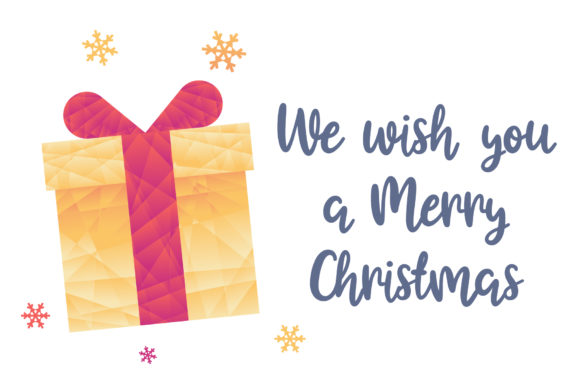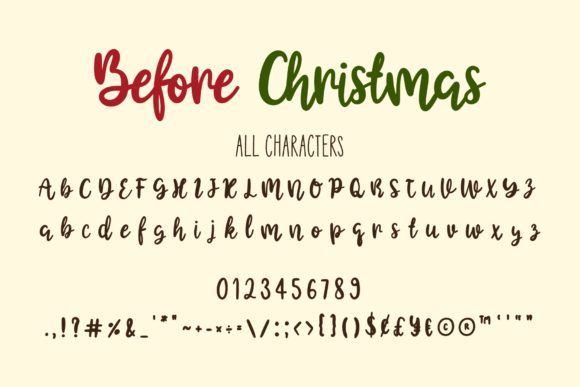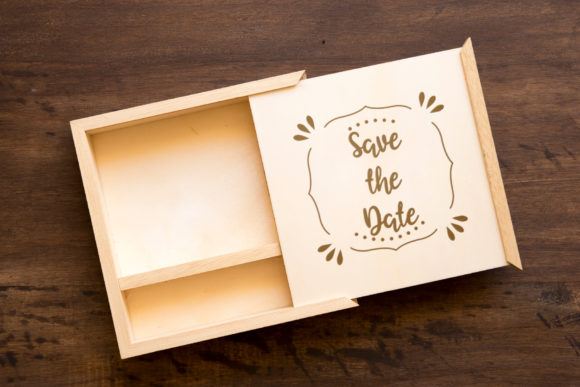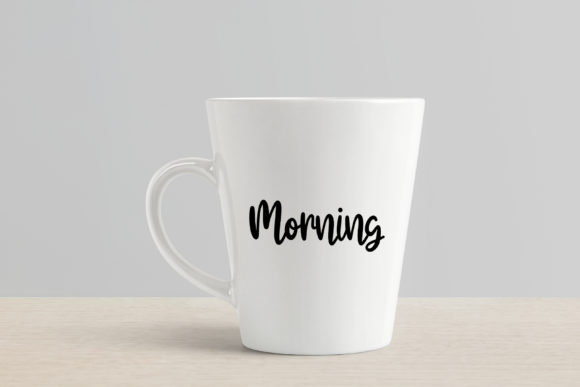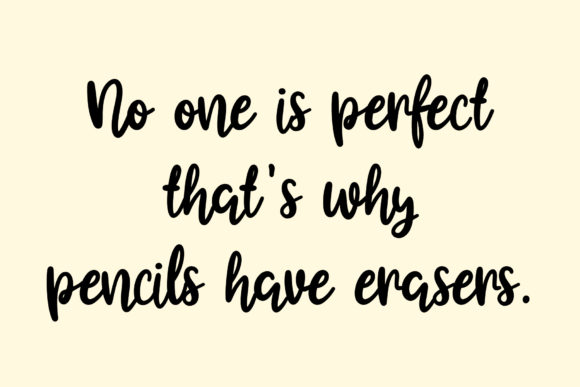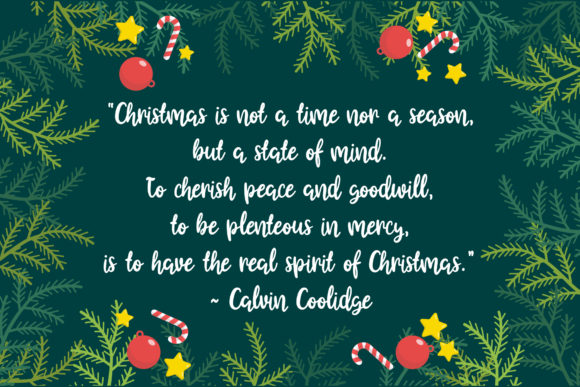
Introducing the Before Christmas Font: A Sweet and Friendly Handwritten Delight
Are you looking for a font that captures the essence of the holiday season? Do you want to add a touch of playfulness and quirkiness to your designs? Look no further than the Before Christmas Font, a sweet and friendly handwritten font that’s perfect for any festive project. In this article, we’ll dive into the world of Before Christmas Font, exploring its features, uses, and benefits for designers and crafters.
A Playful and Quirky Style
Before Christmas Font is a handwritten font that exudes a sense of playfulness and quirkiness. Its unique and irregular style makes it stand out from more traditional fonts, adding a touch of personality to any design. The font’s playful nature makes it perfect for social media posts, posters, cards, and cute greeting cards. Whether you’re designing for personal or commercial use, Before Christmas Font is sure to bring a smile to your audience’s faces.
Perfect for Festive Designs
As its name suggests, Before Christmas Font is ideal for holiday-themed designs. Its festive and cheerful vibe makes it perfect for Christmas cards, invitations, and decorations. However, its versatility also makes it suitable for other festive occasions, such as Halloween, Thanksgiving, or Easter. With Before Christmas Font, you can create eye-catching and engaging designs that capture the spirit of the season.
So, what makes Before Christmas Font so special? Here are some of its key features and benefits:
- Handwritten style: Before Christmas Font has a unique, handwritten look that adds a personal touch to any design.
- Playful and quirky: The font’s irregular style makes it perfect for designs that require a touch of whimsy and fun.
- Versatile: Before Christmas Font can be used for a wide range of designs, from social media posts to print materials.
- Easy to read: Despite its playful nature, Before Christmas Font is easy to read, making it perfect for body text and headings.
Uses for Designers and Crafters
Before Christmas Font is a versatile font that can be used in a variety of ways. Here are some ideas for designers and crafters:
- Social media graphics: Use Before Christmas Font to create eye-catching social media graphics, such as Facebook posts, Instagram stories, and Twitter headers.
- Print materials: Create festive print materials, such as Christmas cards, invitations, and flyers, using Before Christmas Font.
- Crafting projects: Add a personal touch to your crafting projects, such as handmade cards, gift tags, and scrapbooking pages, with Before Christmas Font.
- Digital papers: Use Before Christmas Font to create digital papers, such as printable art, planners, and journals.
Tips for Using Before Christmas Font
To get the most out of Before Christmas Font, here are some tips to keep in mind:
- Experiment with colors: Before Christmas Font looks great in a variety of colors, so don’t be afraid to experiment and find the perfect hue for your design.
- Mix and match: Combine Before Christmas Font with other fonts to create a unique and eye-catching design.
- Keep it simple: Don’t overcomplicate your design – Before Christmas Font is perfect for simple, yet effective designs.
| Font Name | Before Christmas Font |
In conclusion, Before Christmas Font is a sweet and friendly handwritten font that’s perfect for any festive project. Its playful and quirky style makes it ideal for social media posts, posters, cards, and cute greeting cards. With its versatility, ease of use, and compatibility with various software, Before Christmas Font is a must-have for designers and crafters. So why wait? Download Before Christmas Font today and start creating your own festive designs!